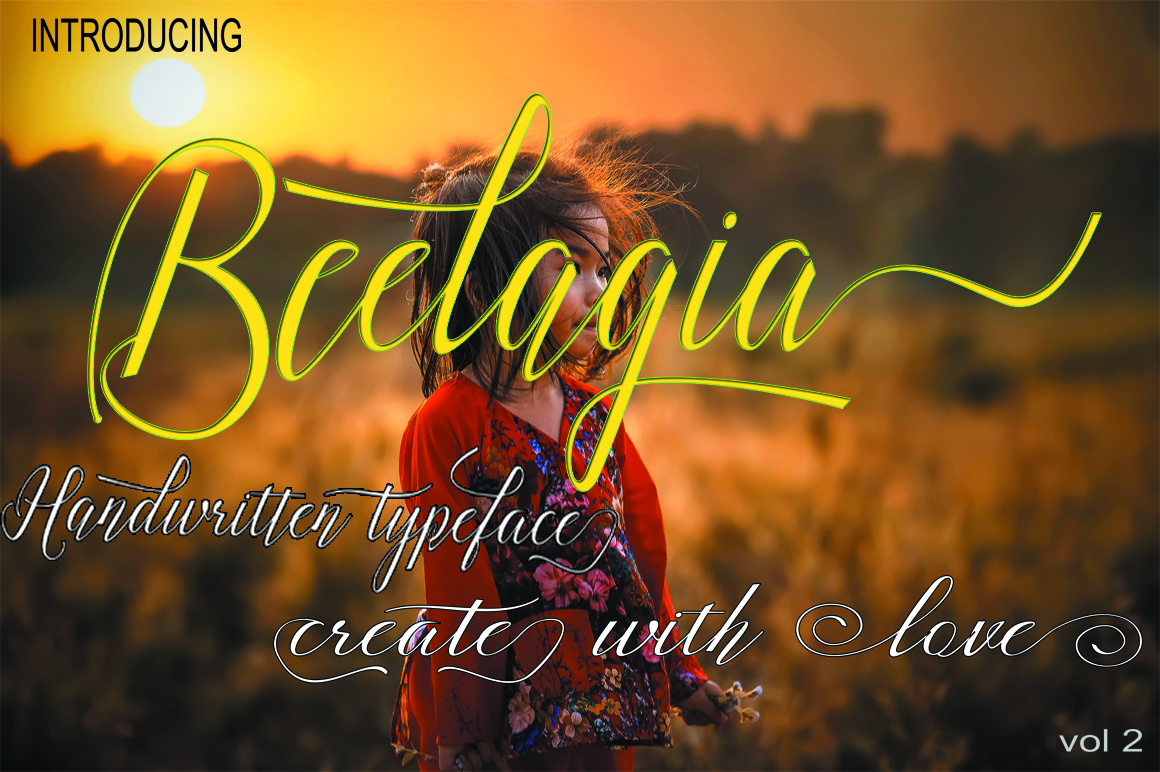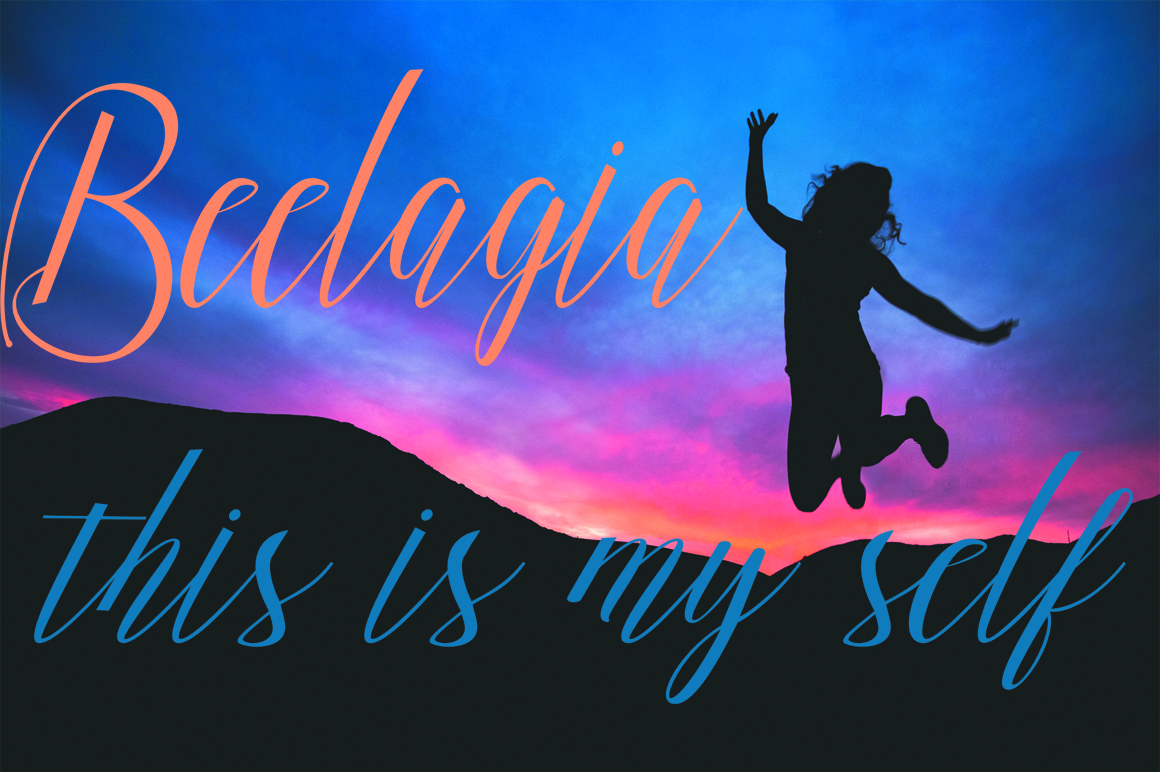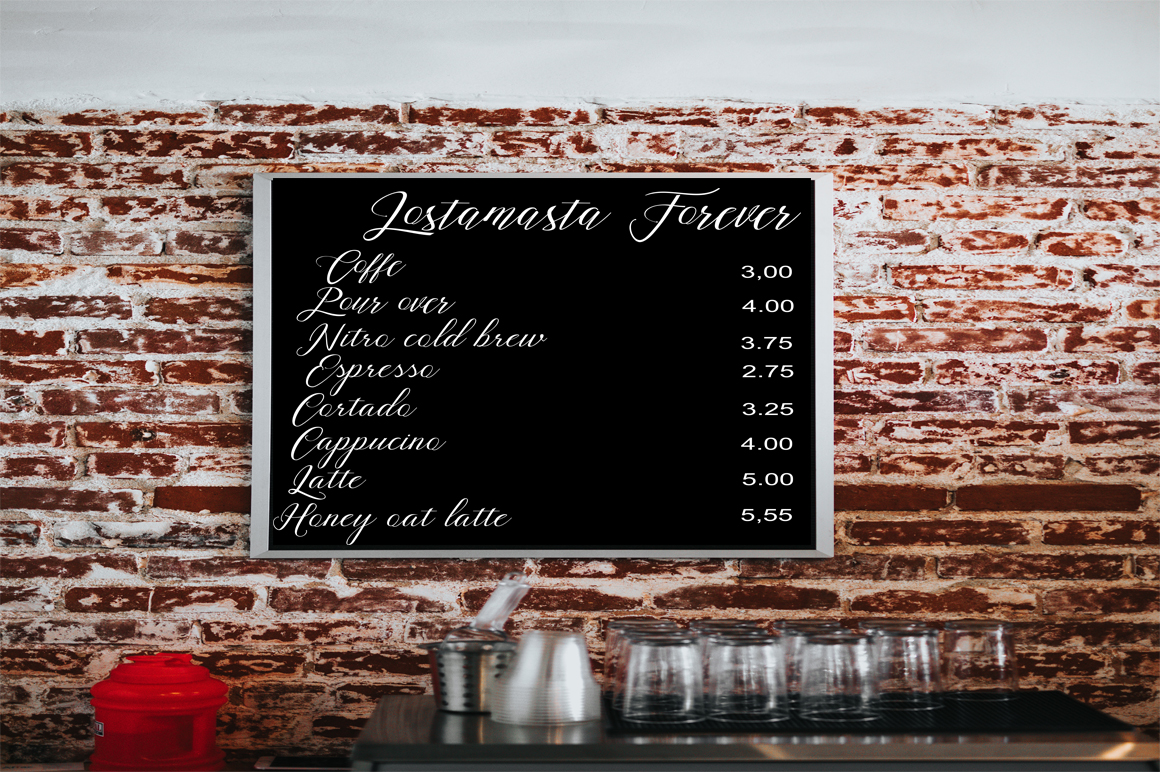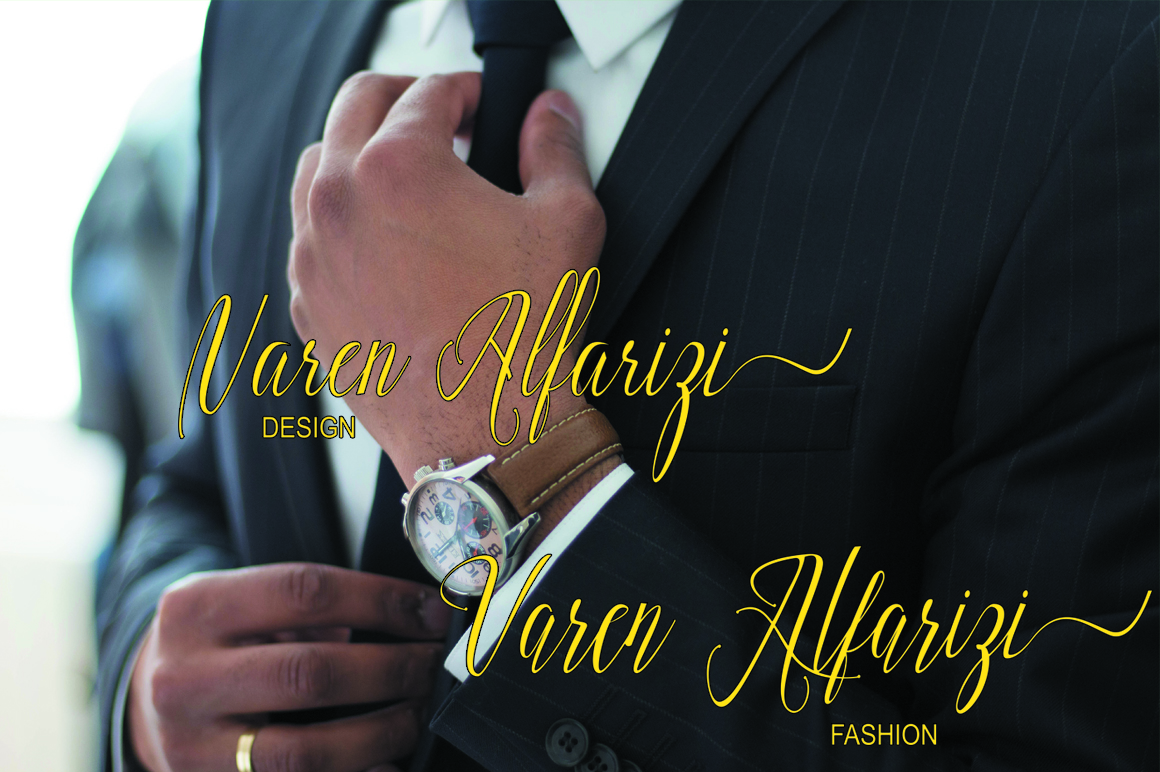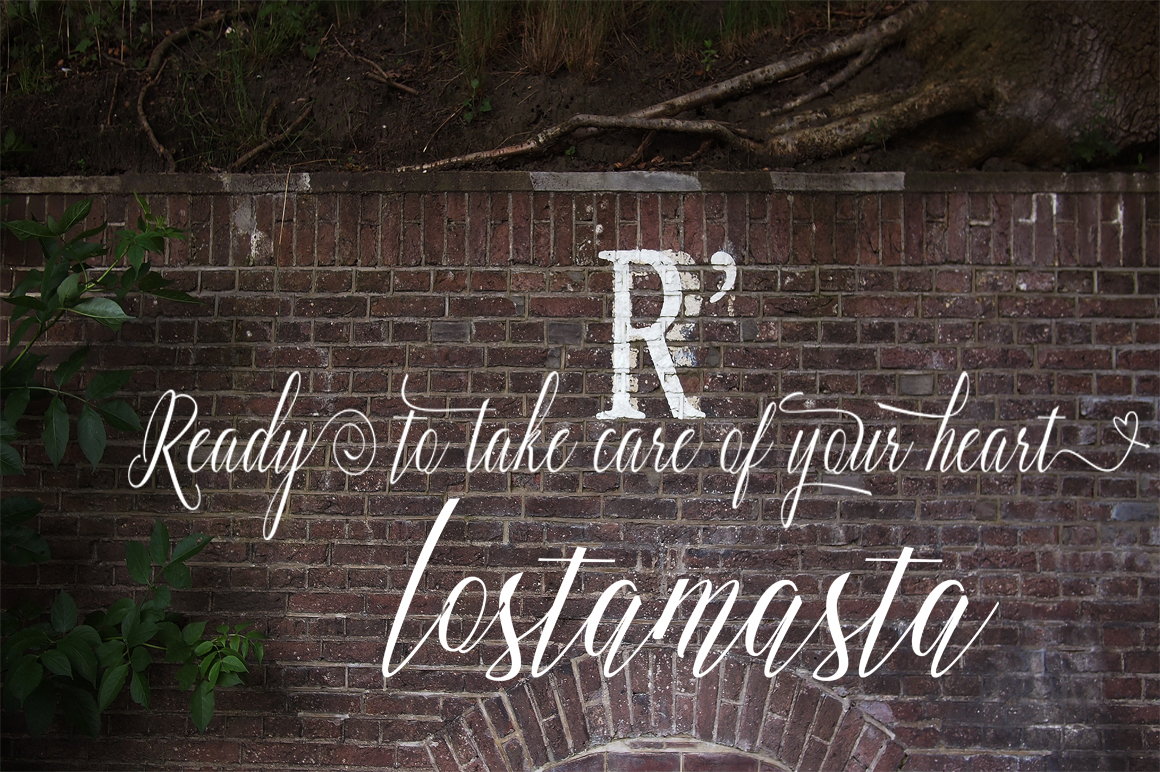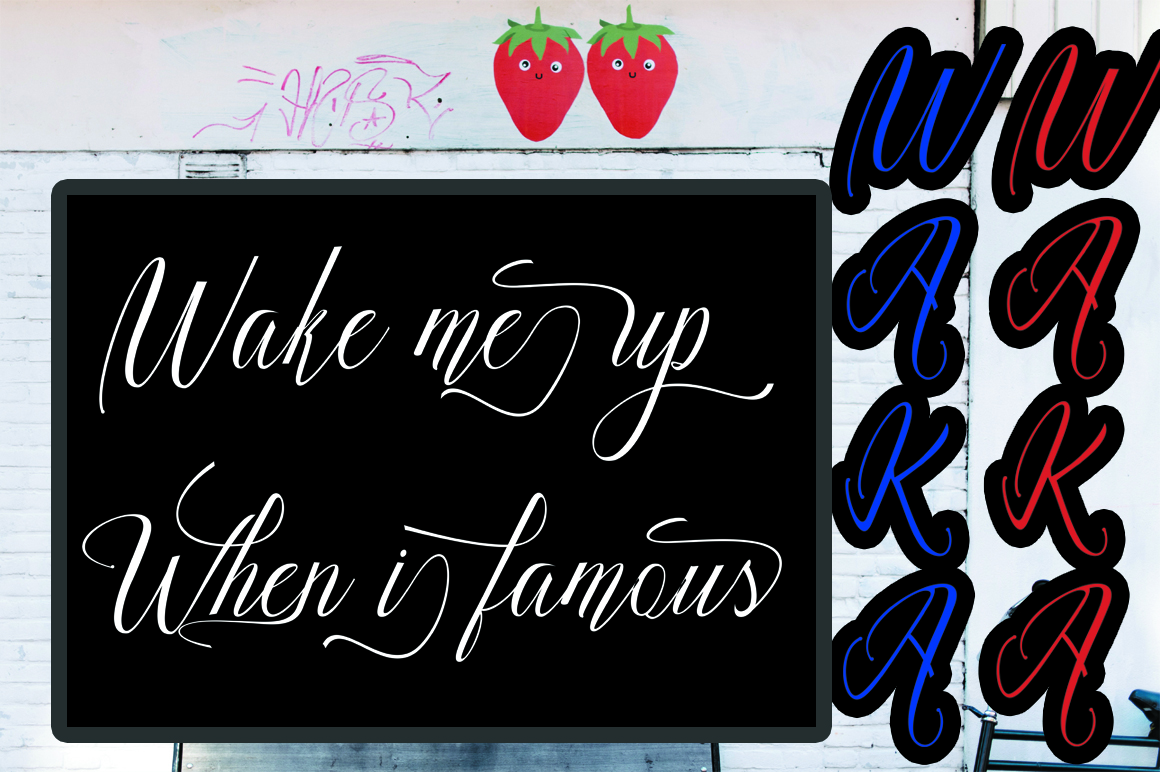
Introducing Beelagia Font: A Beautiful Modern Script Font
Are you a designer or crafter looking for a unique and elegant font to elevate your creative projects? Look no further than Beelagia Font, a stunning modern script font that exudes charm and sophistication. With its handmade calligraphic style and incredibly decorative character alternates, Beelagia is the perfect choice for anyone seeking to add a touch of elegance to their designs.
What is Beelagia Font?
Beelagia is a beautiful and flourished modern script font, designed to bring a touch of luxury and refinement to your creative projects. This gorgeous font features a handmade calligraphic style, with intricate and delicate lines that give it a truly unique and eye-catching appeal. Whether you’re working on a branding project, a wedding invitation, or a craft project, Beelagia Font is sure to impress.
Key Features of Beelagia Font
So, what makes Beelagia Font so special? Here are just a few of its key features:
- Handmade Calligraphic Style: Beelagia Font boasts a beautiful, handmade calligraphic style that gives it a truly unique and elegant appeal.
- Decorative Character Alternates: This stunning font features incredibly decorative character alternates, which allow you to add an extra touch of elegance and sophistication to your designs.
- Charming Dancing Appeal: Beelagia Font has a charming dancing appeal that adds a touch of whimsy and playfulness to your designs.
- Modern Script Font: Beelagia is a modern script font that is perfect for a wide range of creative projects, from branding and advertising to crafting and DIY projects.
Uses for Beelagia Font
Beelagia Font is an incredibly versatile font that can be used for a wide range of creative projects, including:
- Branding and Advertising: Use Beelagia Font to create stunning logos, business cards, and marketing materials that exude elegance and sophistication.
- Wedding Invitations and Stationery: Add a touch of luxury and refinement to your wedding invitations, stationery, and other paper goods with Beelagia Font.
- Crafting and DIY Projects: Beelagia Font is perfect for crafters and DIY enthusiasts who want to add a touch of elegance to their projects, from scrapbooking and journaling to card making and more.
- Graphic Design: Use Beelagia Font to create stunning graphic designs, from social media graphics and blog headers to infographics and more.
Why Choose Beelagia Font?
So, why choose Beelagia Font for your creative projects? Here are just a few reasons:
- Unique and Elegant: Beelagia Font is a truly unique and elegant font that will set your designs apart from the crowd.
- High-Quality Design: This font is designed with high-quality craftsmanship in mind, ensuring that it looks stunning in any design.
- Versatile: Beelagia Font can be used for a wide range of creative projects, making it a great addition to any designer’s or crafter’s toolkit.
In conclusion, Beelagia Font is a stunning modern script font that is perfect for designers and crafters looking to add a touch of elegance and sophistication to their creative projects. With its handmade calligraphic style, decorative character alternates, and charming dancing appeal, Beelagia Font is sure to impress. Whether you’re working on a branding project, a wedding invitation, or a craft project, Beelagia Font is a great choice. So why wait? Download Beelagia Font today and start creating stunning designs that exude luxury and refinement!